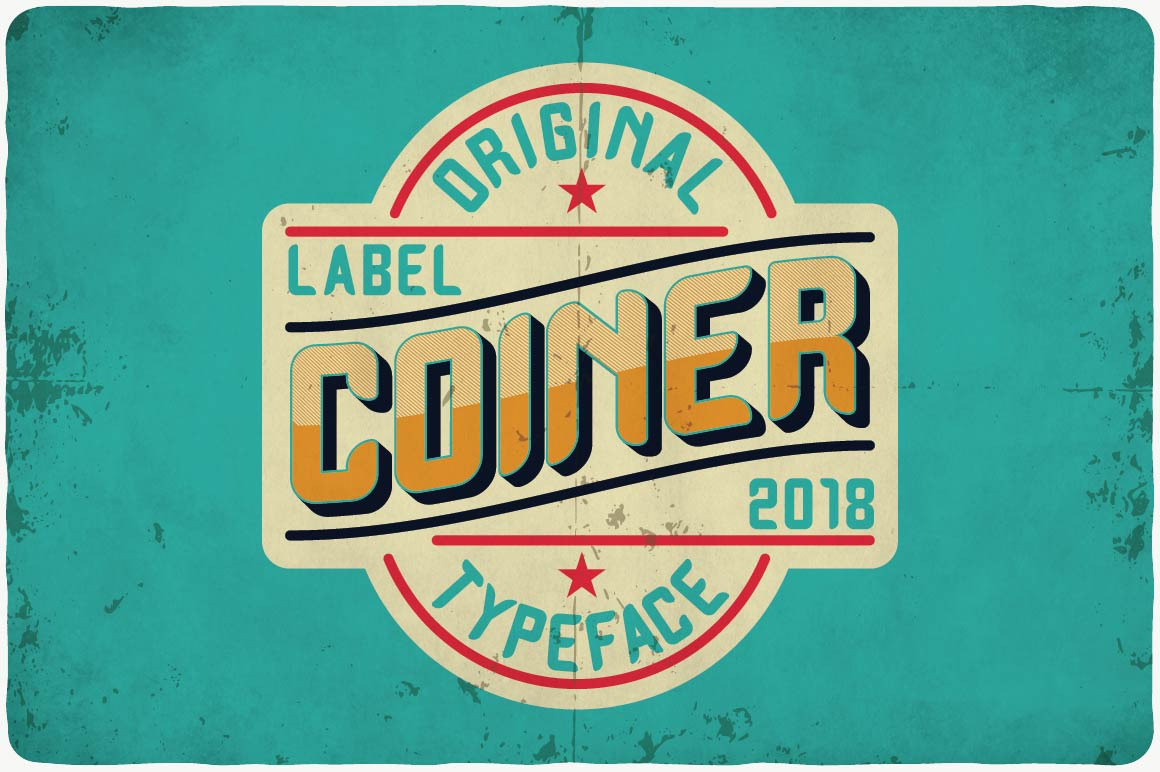
Coiner typeface
Introducing a vintage look label typeface named "Coiner". This typeface includes four styles, for sample look at 5th preview. Typeface will good viewed on any yours design.